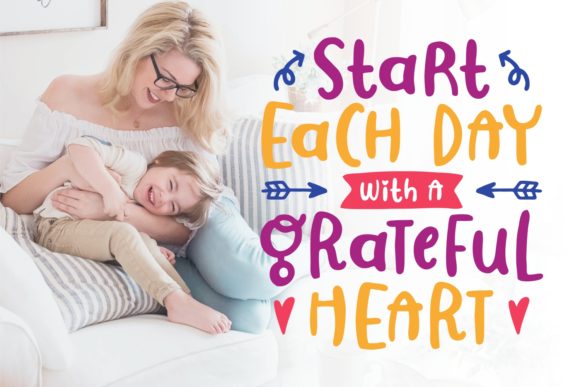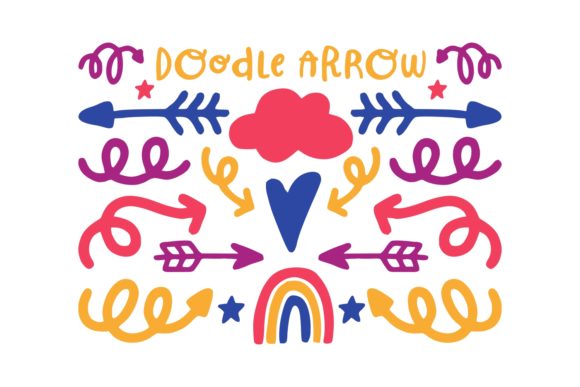
Lovely Children Font
db-ku.com - Script & Handwritten -- Lovely Children is a joyful and quirky handwritten font, designed to cheer up each of your creative ideas. Fall in love with its sweet and unique design and create outstanding designs!